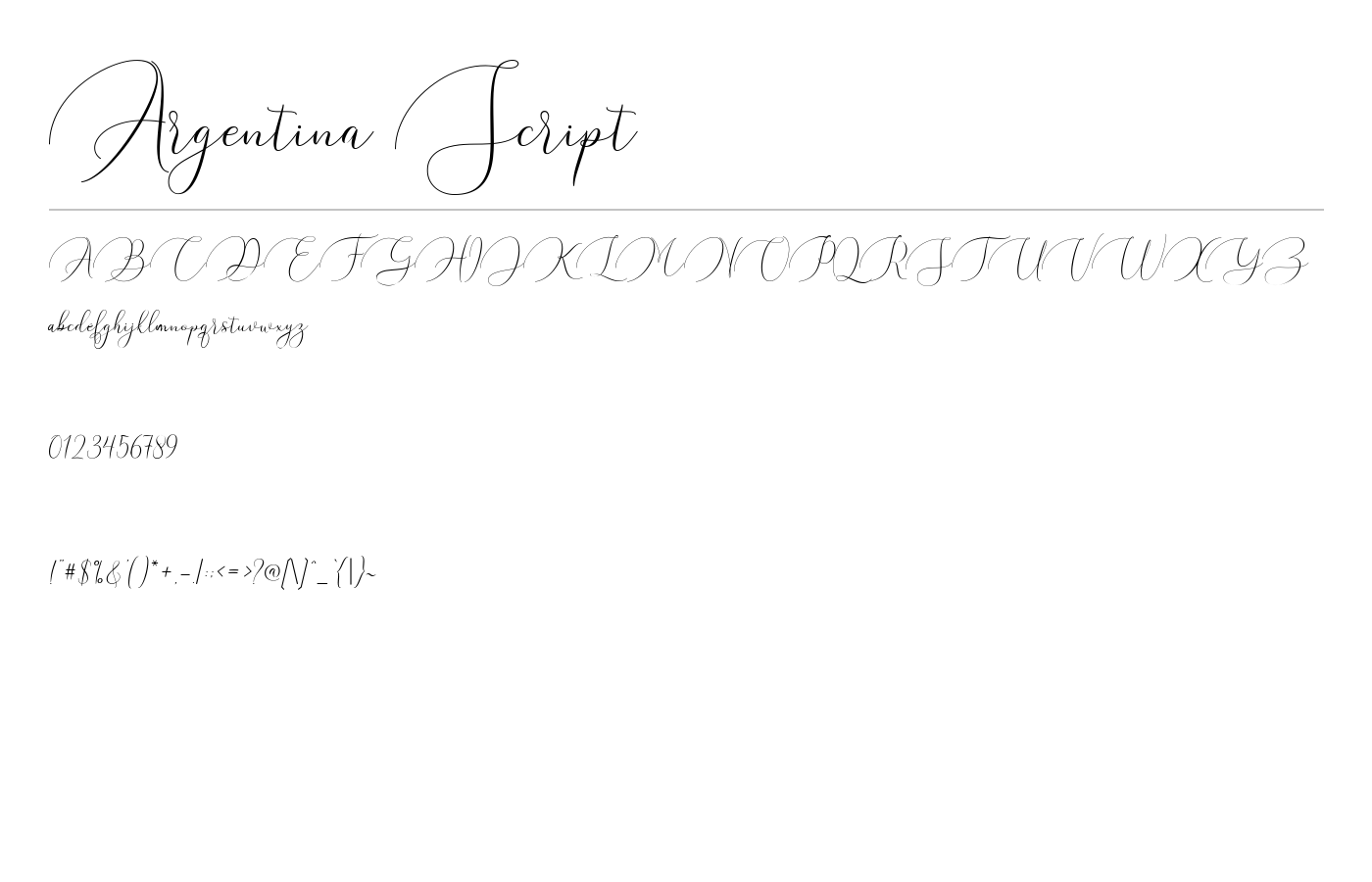
Argentina Script is a delicate and elegant script font characterized by its thin, flowing strokes and graceful swashes. It features a high contrast between fine lines and smooth curves, with an airy, handwritten feel that evokes sophistication and charm. This font is ideal for invitations, branding, and editorial designs where a refined and stylish handwritten touch is desired.
Argentina Script Font
About Argentina Script Font
| Font family | Argentina Script Font |
| Designer | Mega Type |